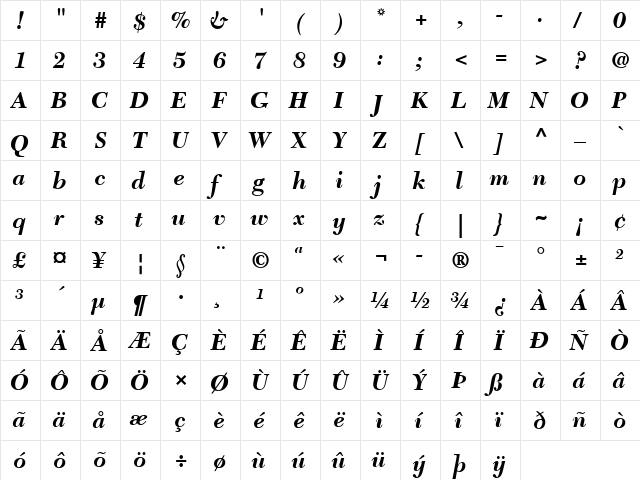
NewCaledonia LT Bold Italic Font Preview
Design Context for NewCaledonia LT Typeface
NewCaledonia LT offers clean, dependable letterforms without strong stylistic allegiance, making it a practical choice for designers who need flexibility. The dynamic lean of this cut emphasises speed and emphasis in any layout. The heavy weight commands attention and anchors typographic hierarchies.
Pro Tip: Try NewCaledonia LT for annotation and caption copy alongside an upright companion — the contrast in angle creates a dynamic but ordered typographic system.